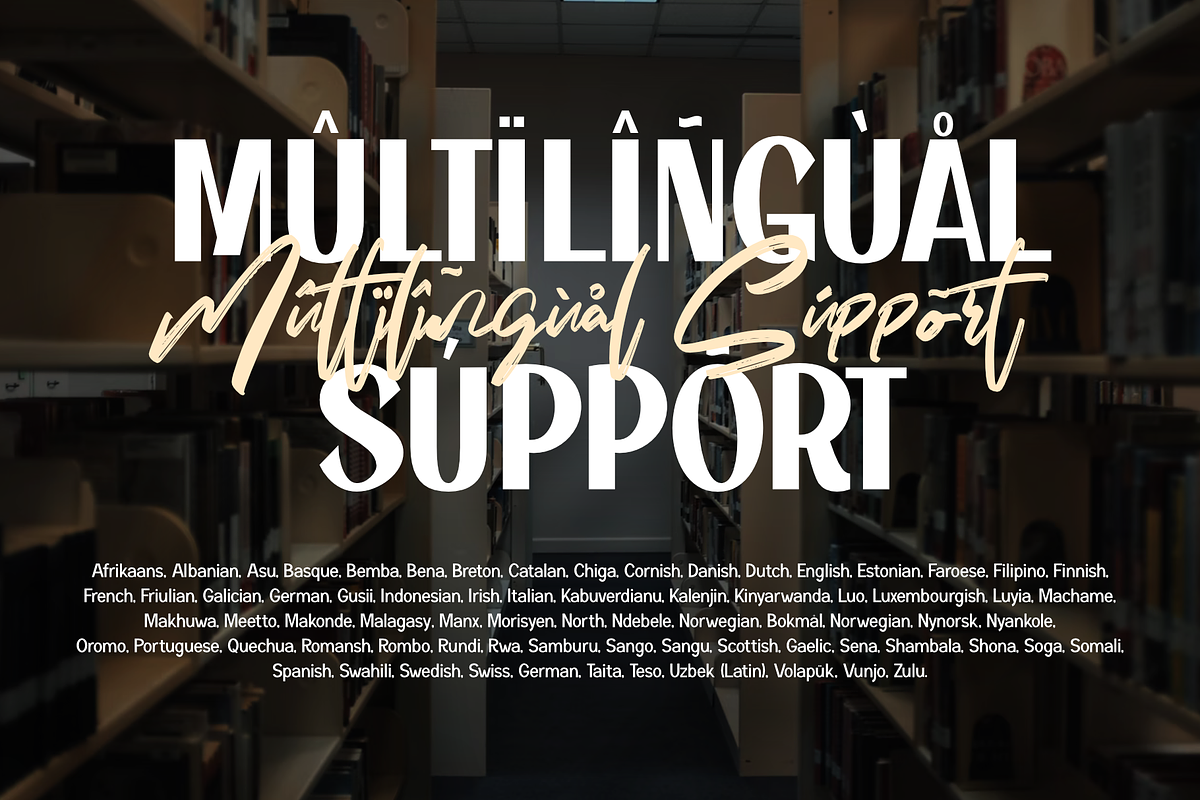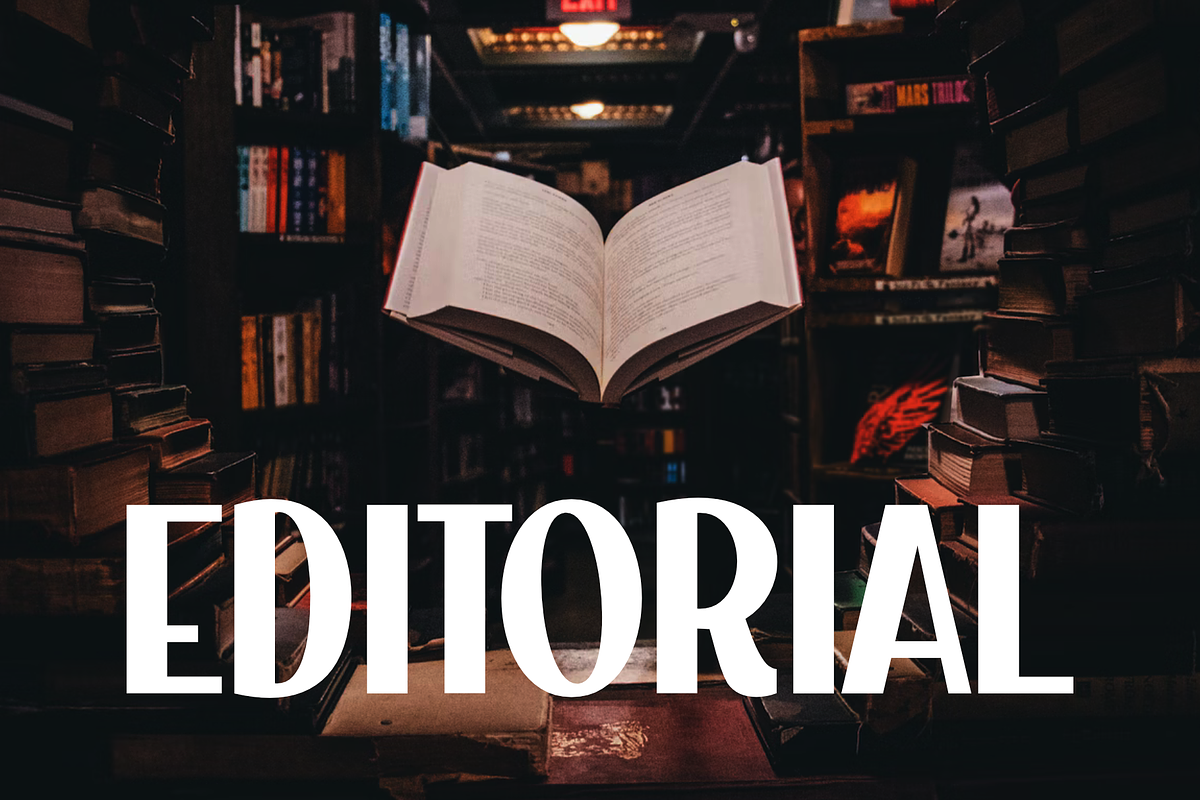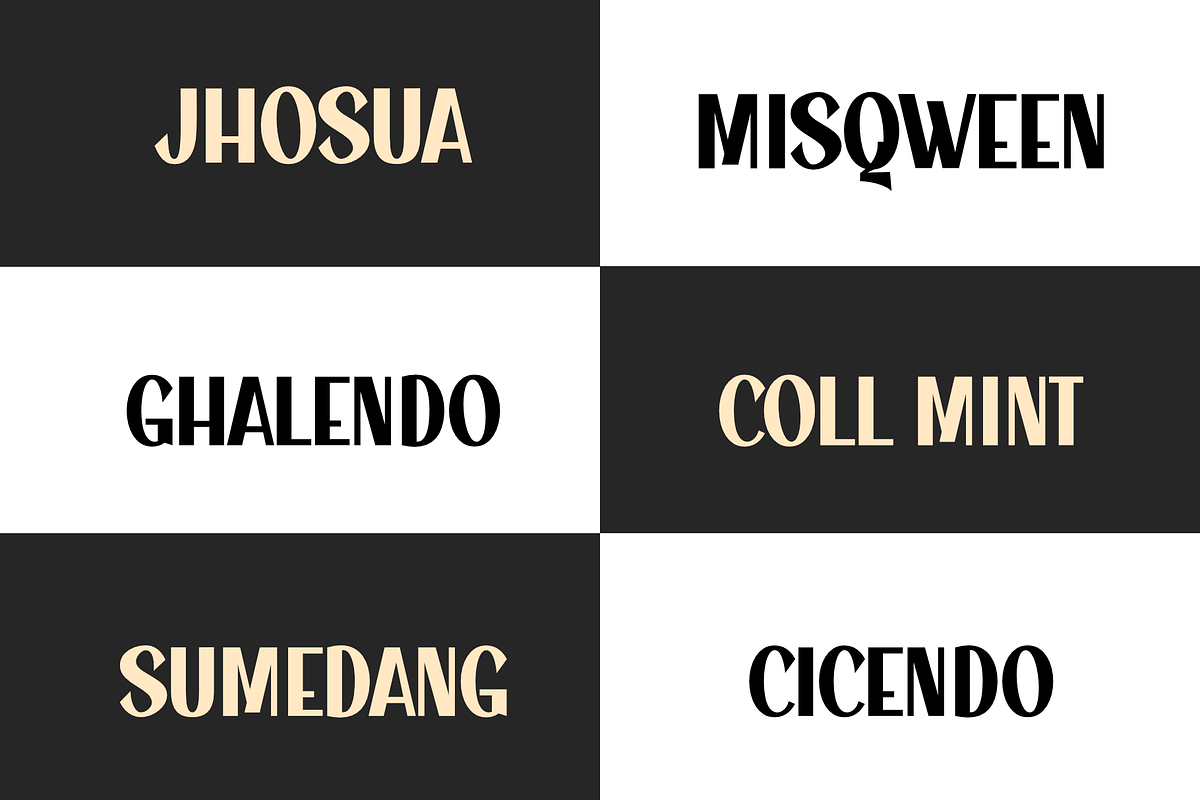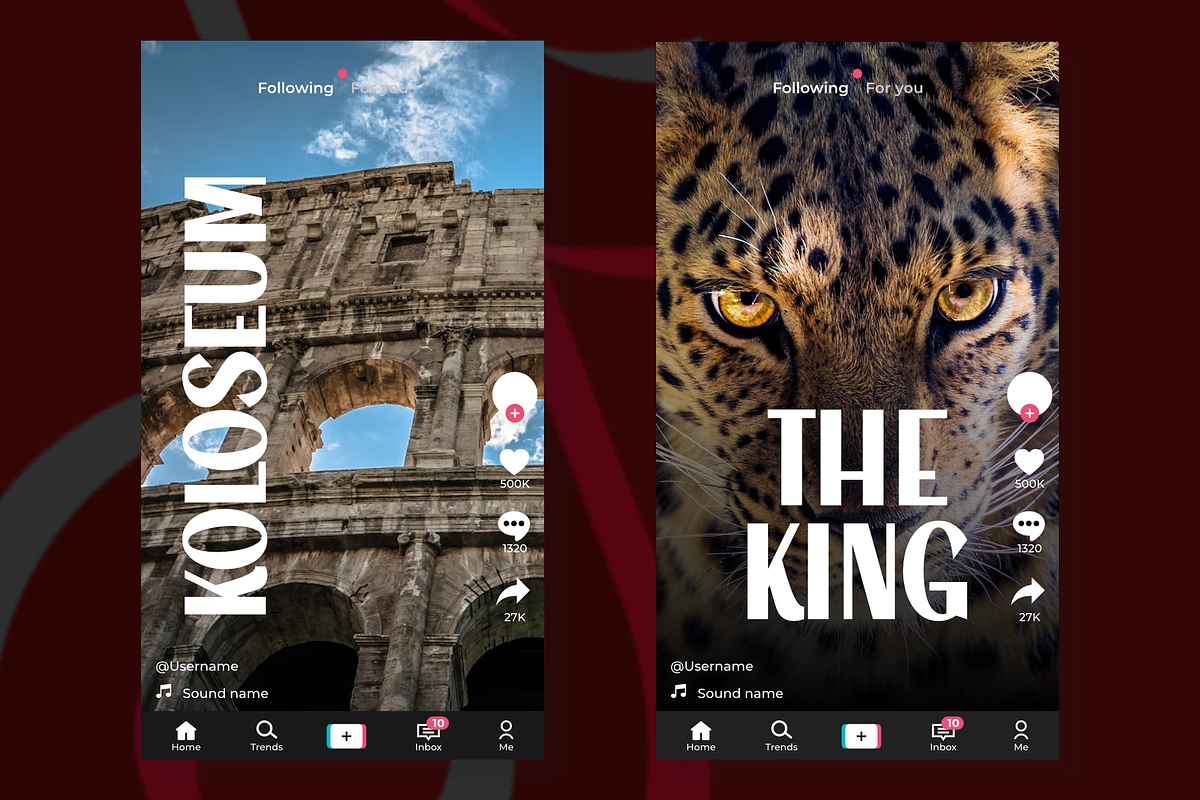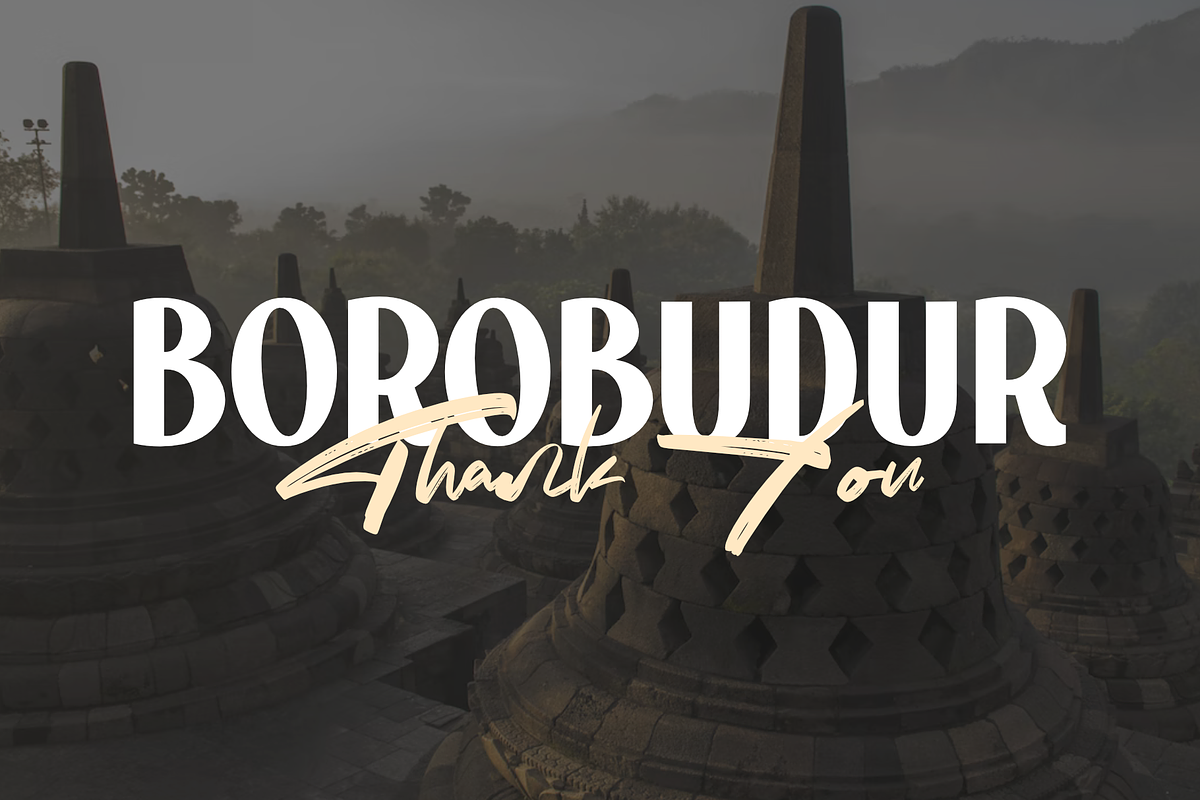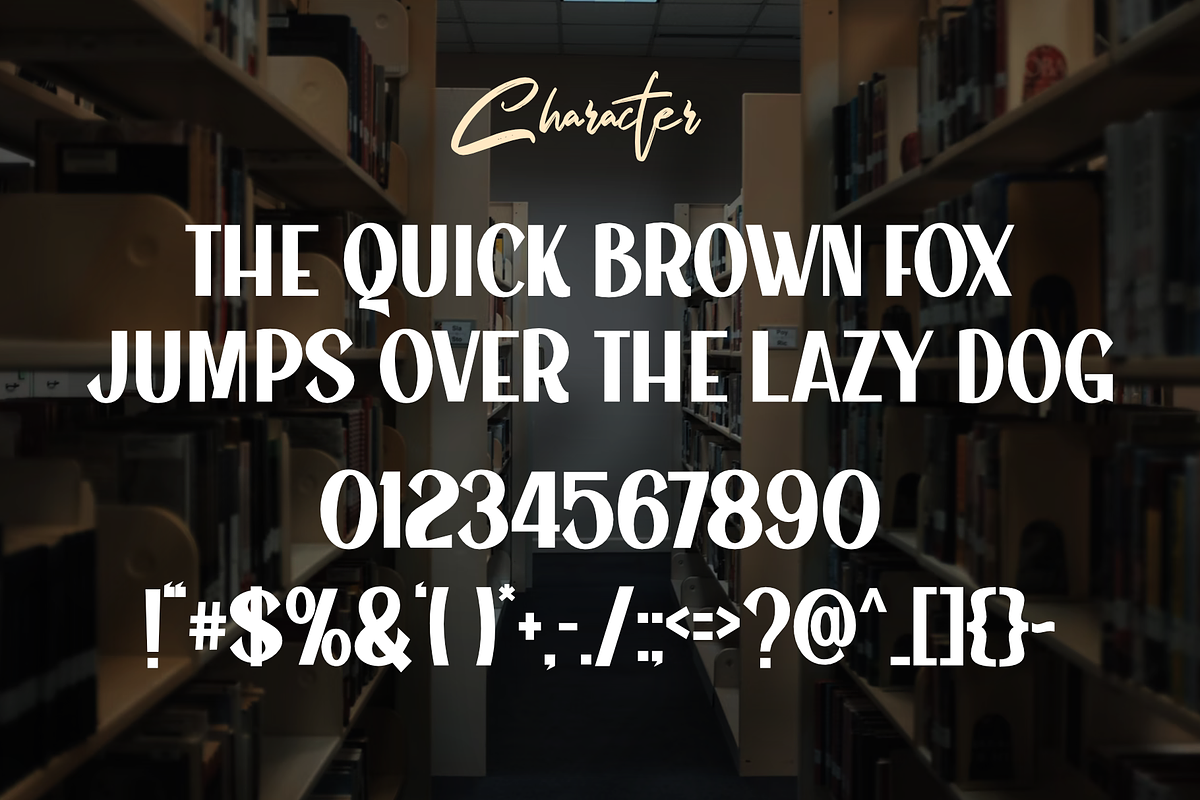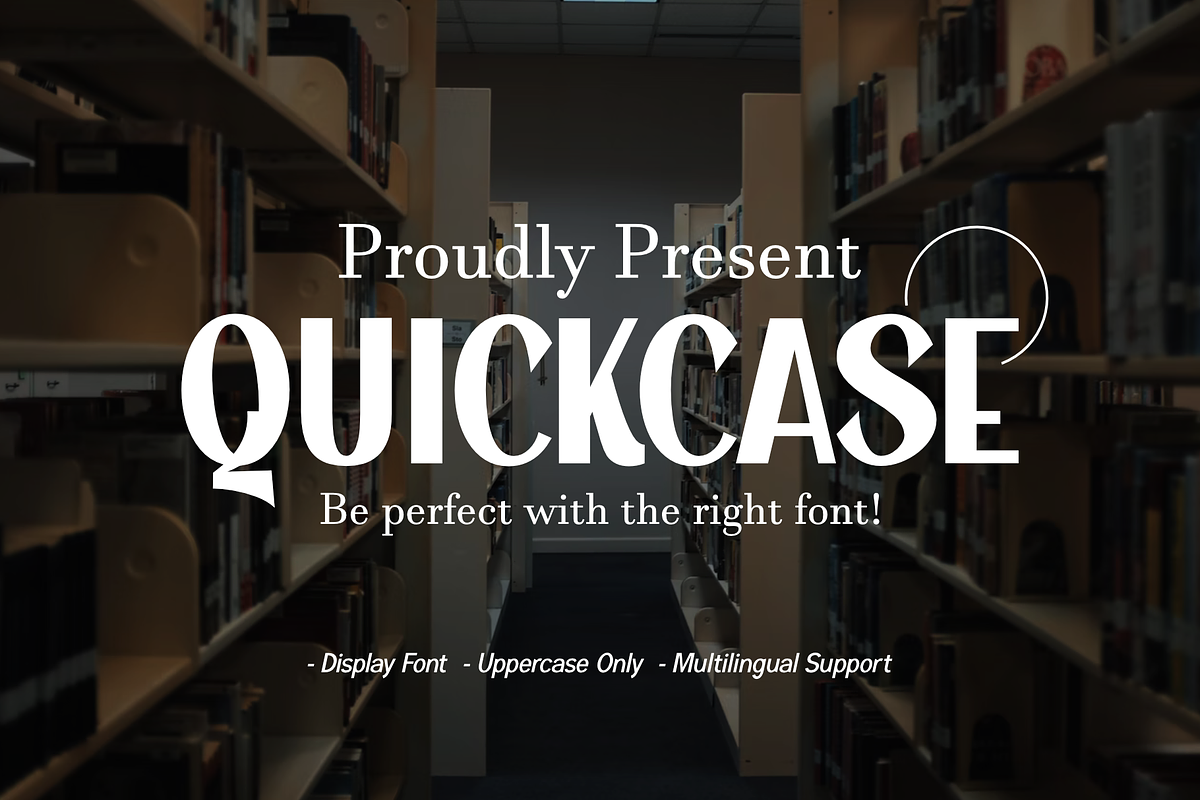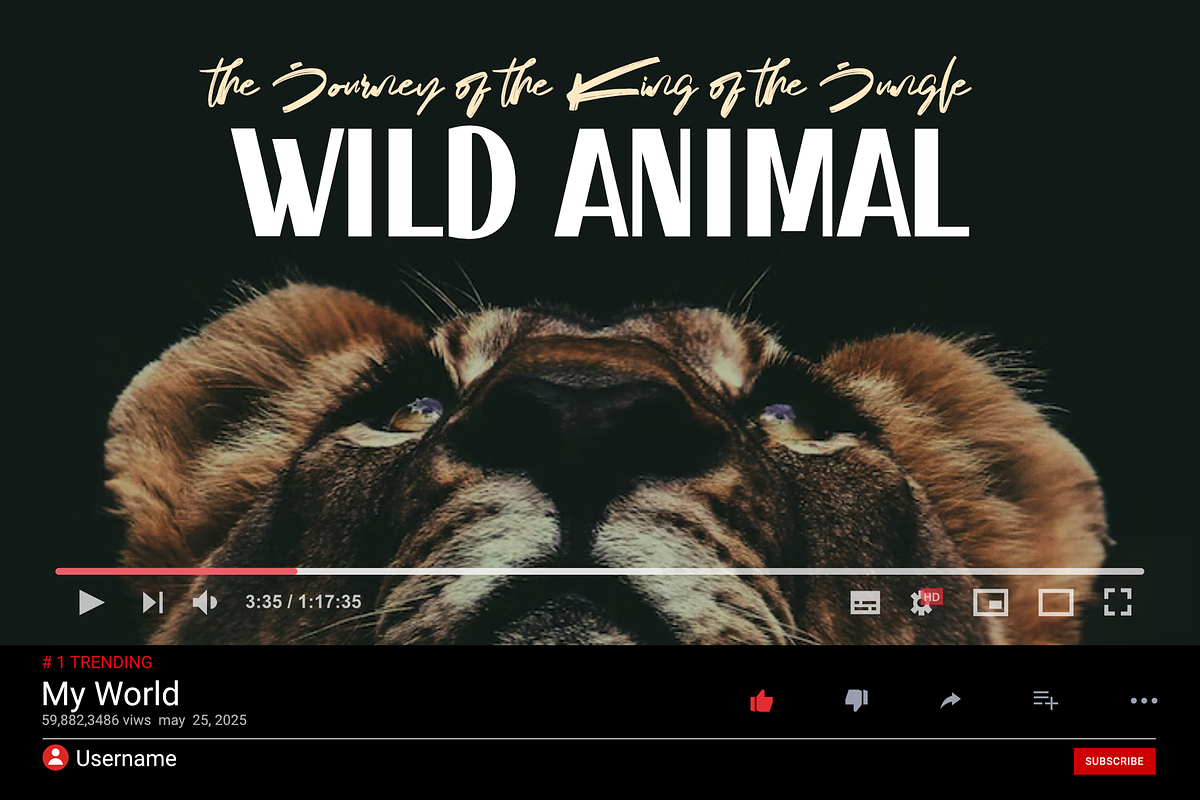
Quickcase
Quickcase is an elegant sans serif font with a simple style to give your designs a formal and modern feel. Like any other, sans serif font, but only in upper case.
The typography is rendered in high contrast and slightly bold and is easy to read enough to work with any text size. This font is perfect to use for Titles or main captions in your projects.
- Uppercase Only
- Multilingual Accent